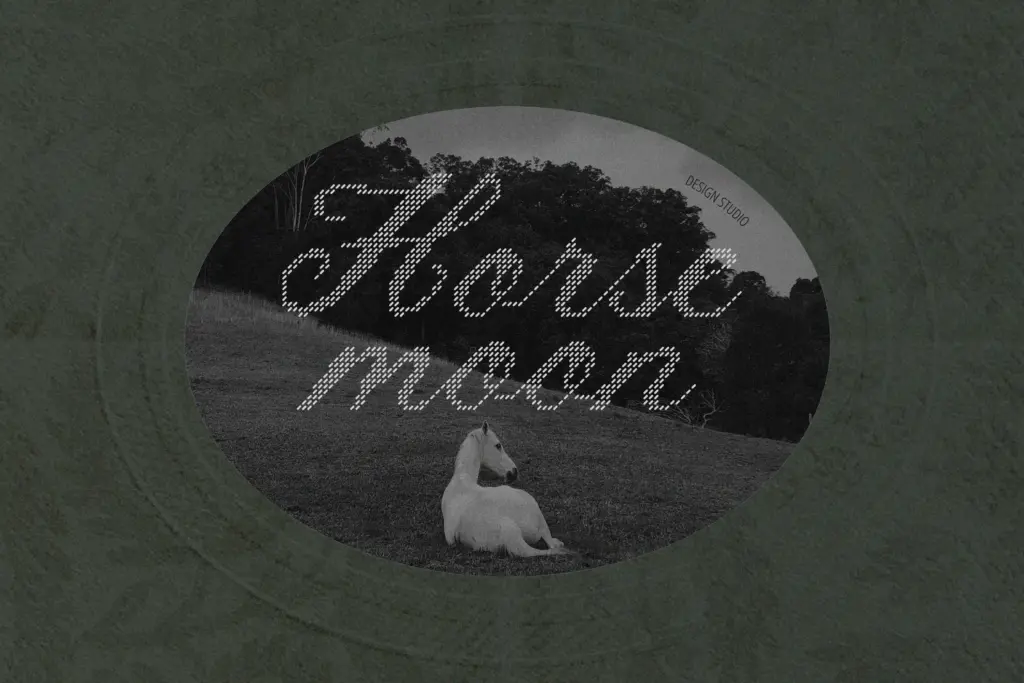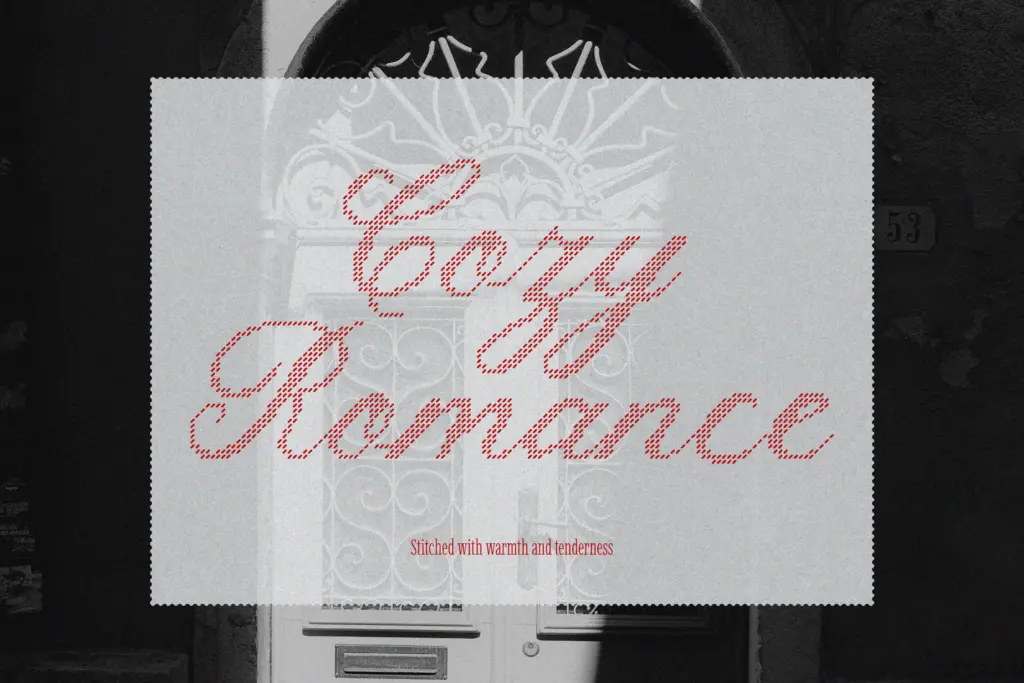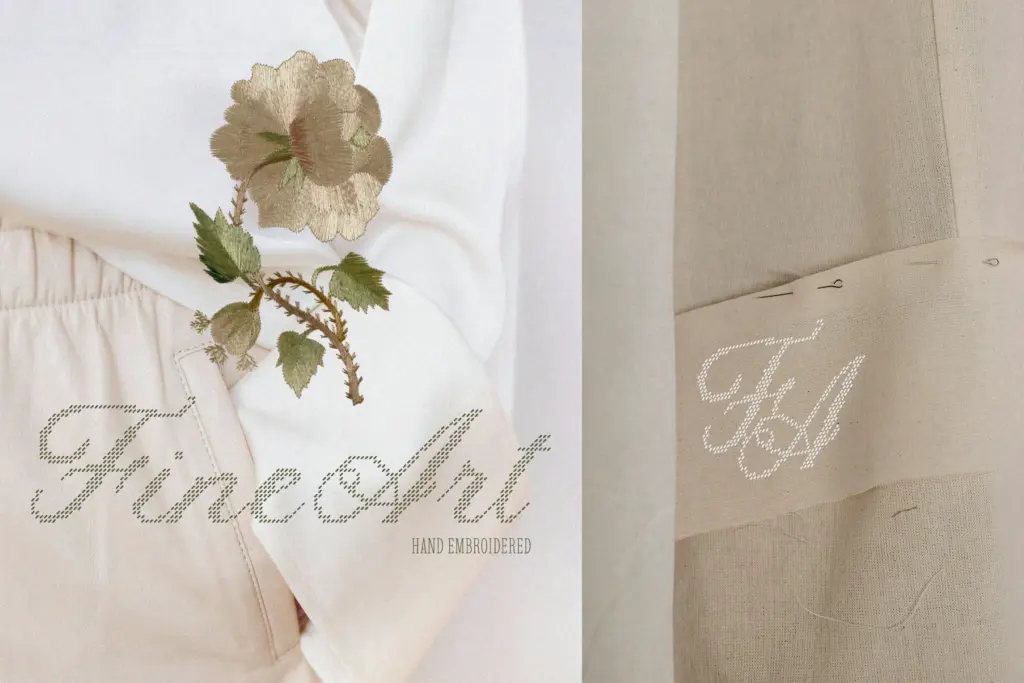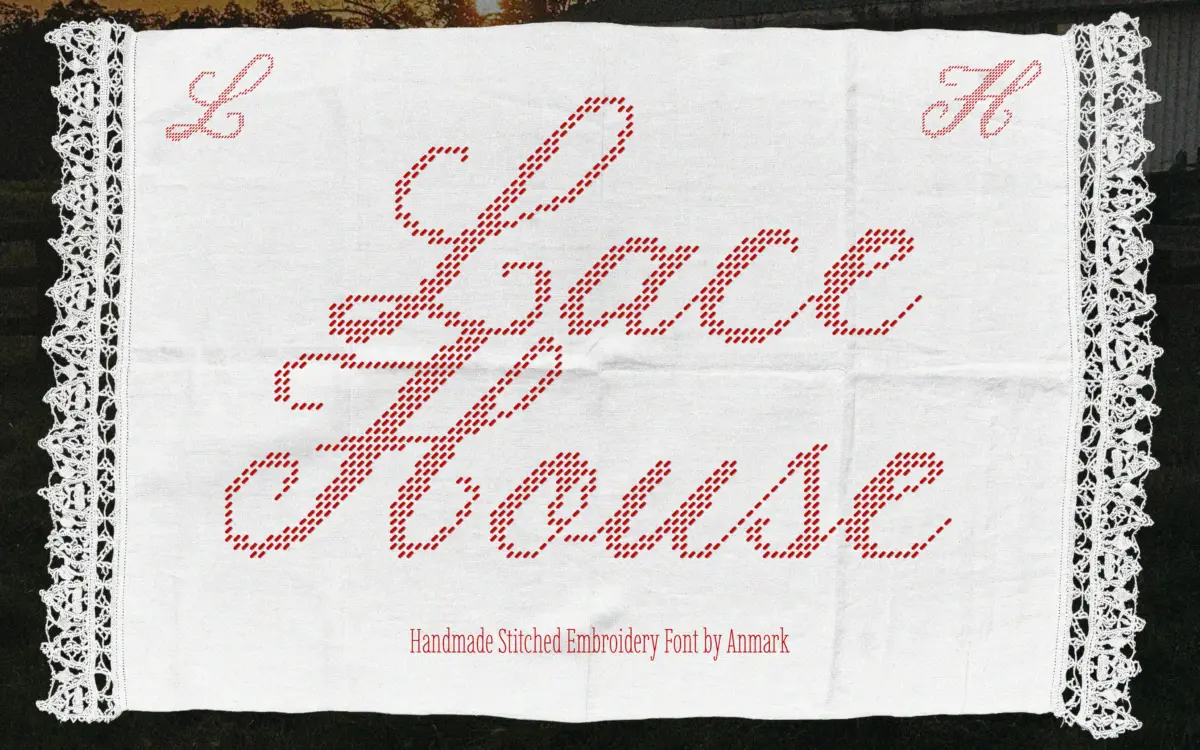
Lace House is a script built to look sewn rather than written. The letterforms carry a faux-embroidery texture, a slight waviness in the strokes that reads like thread pulled taut through fabric rather than ink laid down with a nib. The joins between letters lean loose and looped, giving the whole thing a handmade, slightly uneven rhythm rather than the polished continuous flow you get from a standard connecting script.
The effect works because it commits to the conceit fully. There’s no attempt to disguise the stitched motif as a subtle texture overlay — it’s baked into the letter construction itself, which means the font reads as embroidery even before a viewer consciously registers why. That’s a harder trick to pull off than it sounds, and it’s the strongest thing about this typeface.
The trade-off is that the texture adds visual noise. At small sizes the stitched detailing can blur into a grey smudge rather than distinct letterforms, so this isn’t a font you reach for when clarity at a glance is the priority. It wants space and size to do its job.
As a script built around a decorative, textured stroke, Lace House naturally leans on the connections between letters to sell the handmade illusion — tighter kerning would flatten the stitched effect, looser spacing lets each letter’s texture read individually before the eye stitches the word together. Designers using it for monograms or short lockups will get the best results letting single words or names breathe rather than setting long lines.
The seller markets this squarely as a mood typeface: warm, nostalgic, tactile. That’s a fair description of what the letterforms are doing structurally, even setting aside the copywriting. There isn’t detail available on language support or extended character coverage, so anyone working outside a standard Latin alphabet should test the glyphs they actually need before committing a layout to it.
This is a font for brand touches, not body copy. It suits monograms, logotypes for handmade or fashion-adjacent businesses, packaging labels, and the kind of wedding stationery where a couple wants something that feels stitched rather than printed — save-the-dates, place cards, the occasional pull quote on an invitation suite. Anywhere the word